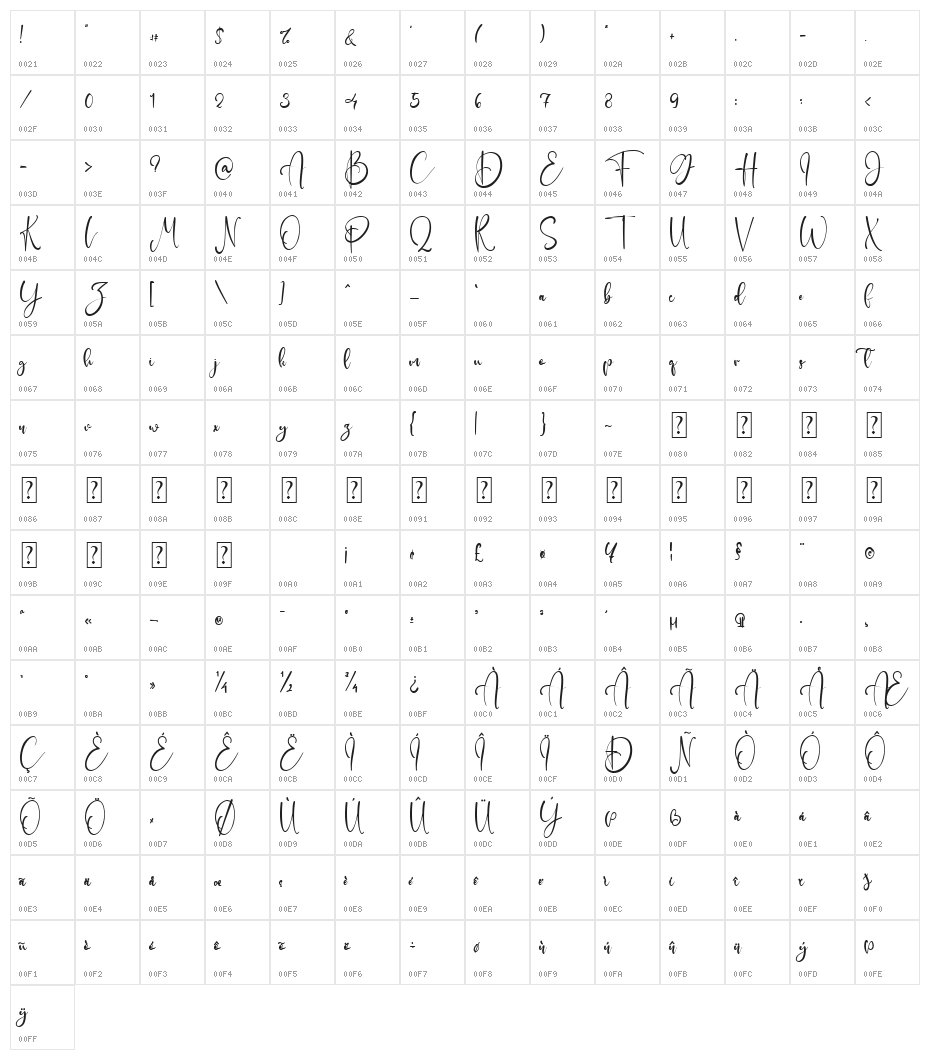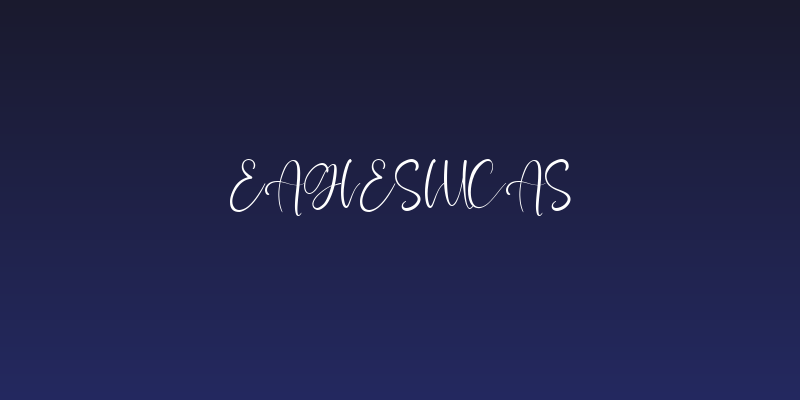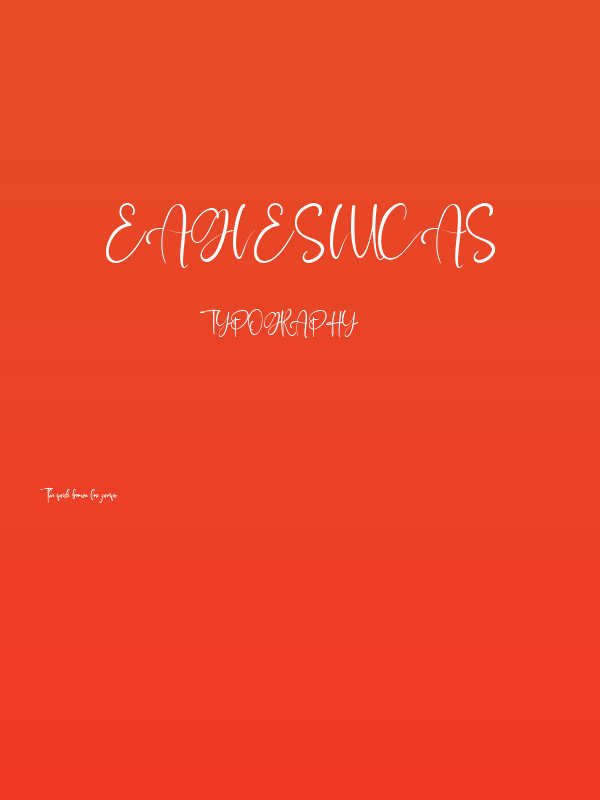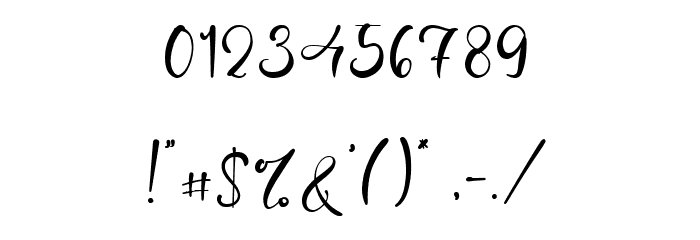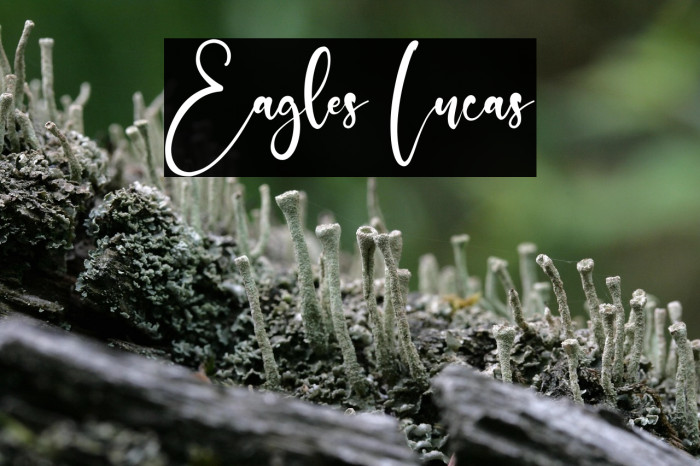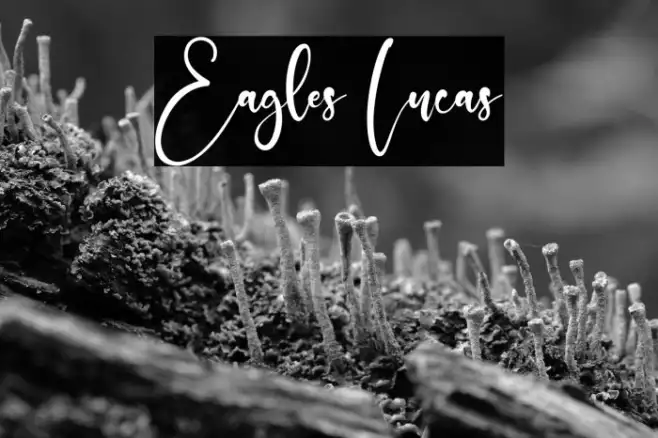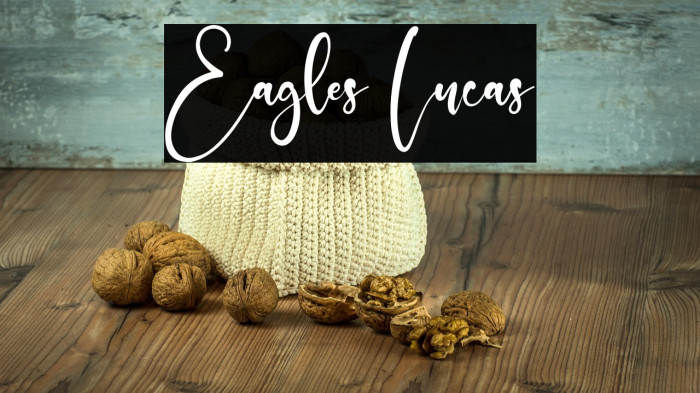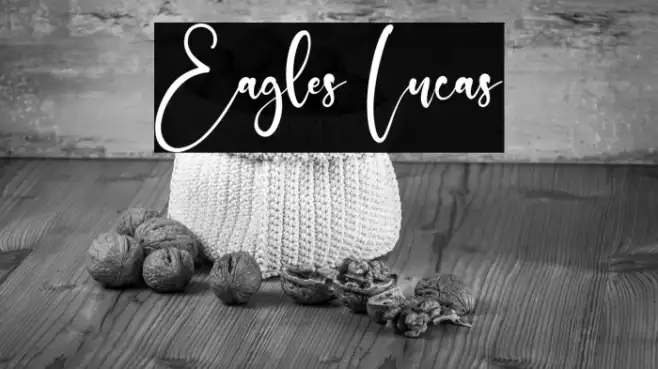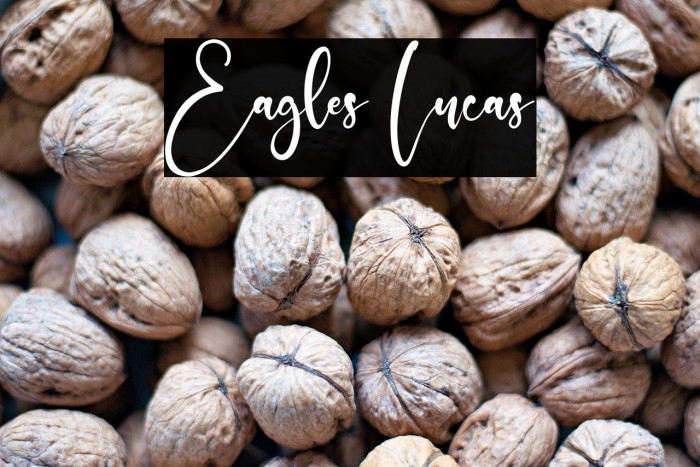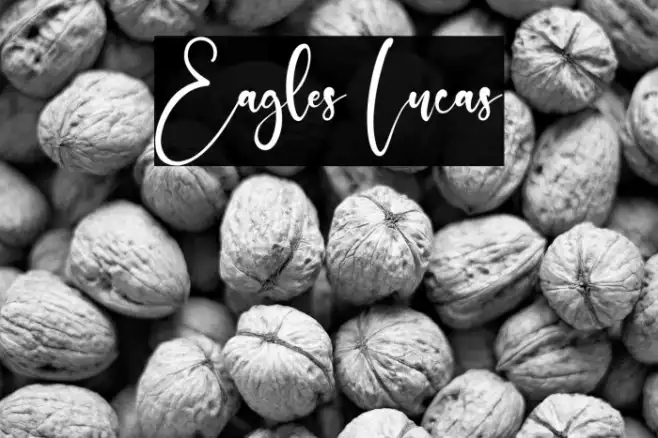
Eagles Lucas Font
Eagles Lucas Description
This font features an elegant and flowing script style, characterized by its intricate and decorative letterforms. The uppercase letters are tall and slender, with graceful loops and swashes that add a sense of movement and sophistication. The lowercase letters maintain a consistent style, with smooth curves and a slightly playful touch. The numerals are distinct and easy to read, while the special characters complement the overall aesthetic with their stylish design. This font exudes a sense of elegance and creativity, making it suitable for a variety of artistic and formal applications.
| Proposed Projects | Ideal for wedding invitations, branding, greeting cards, and elegant packaging designs. |